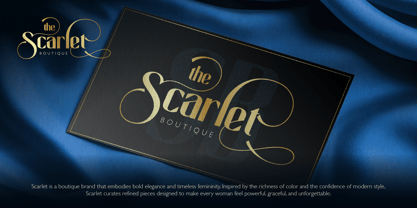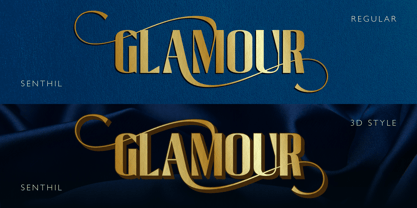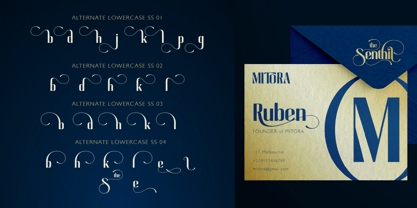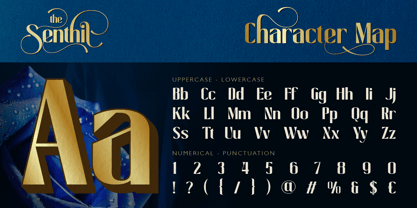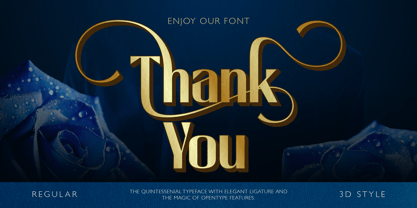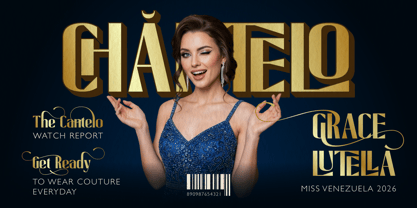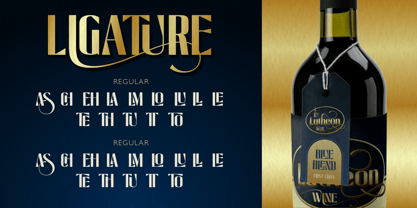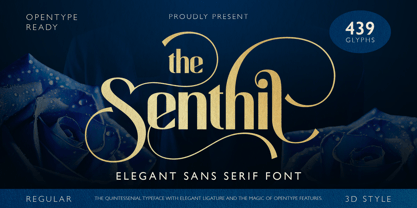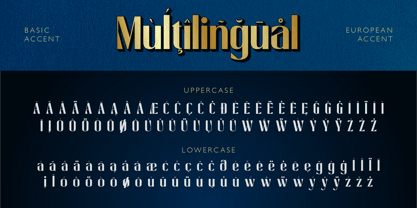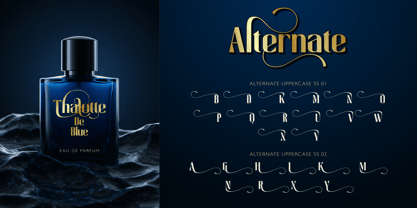
Senthil
The Senthil Font Family was designed by Eric Kurniawan and published by Burntilldead. Senthil contains 2 styles and family package options. More about this family
Senthil is a modern elegant sans serif font designed to bring a luxurious and high-end feel to your projects. It combines clean letterforms with beautiful flowing swashes, creating a perfect balance between classy and bold. This font is made for designers who want something sophisticated but still powerful. The smooth curves and stylish ligatures give your typography a premium, editorial look, perfect for branding, beauty campaigns, packaging, and glamorous events. You can use the regular style for a clean luxury look, or apply the 3D style to create dramatic and eye-catching designs. Perfect for: Luxury branding, Beauty & fashion campaigns, Perfume & cosmetic packaging, Award event posters, Editorial design, High-end logo design, Social media graphics, Wedding invitations Features: A - Z set (Uppercase & Lowercase), Number, Punctuation, Alternates, Ligatures, Multilingual